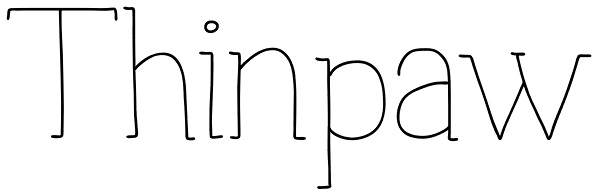
Thinpaw
Thinpaw is a serif handwritten font perfect for usage in a really big sizes (50 pt+). The stem width is about 0.5 mm (0.019") in 100 pt size. The font comes with central european character set and a set of various glyphs and icons (see preview...